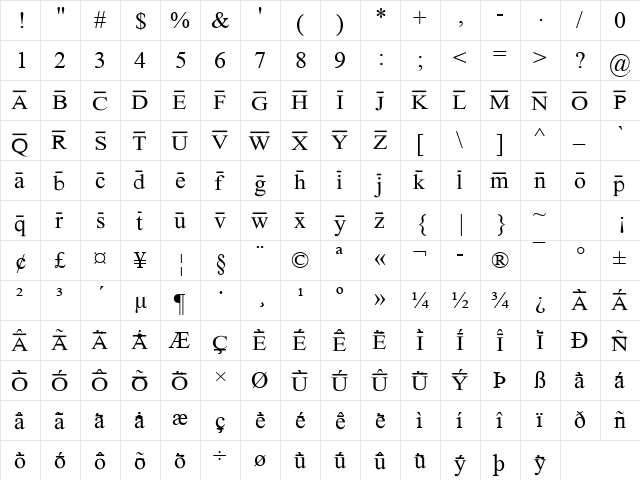
Times New Roman Antimatter Regular
| Foundry | Monotype Typography |
| Designer | Monotype Type Drawing Office - Stanley Morison, Victor Lardent 1932 Plus modified by Don Lincoln 2002. |
Design Context for Times New Roman Antimatter Typeface
Times New Roman Antimatter is a composed and adaptable typeface that performs quietly and consistently across a wide range of design contexts.